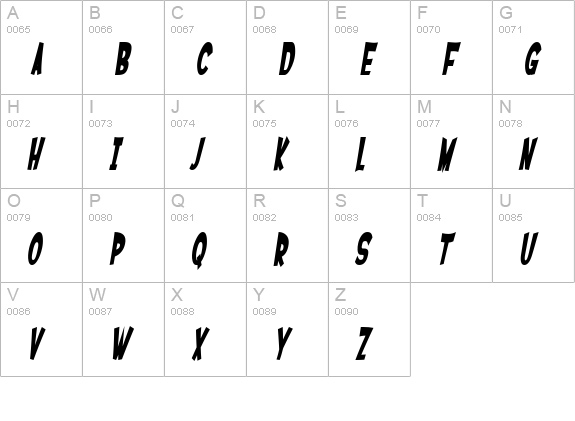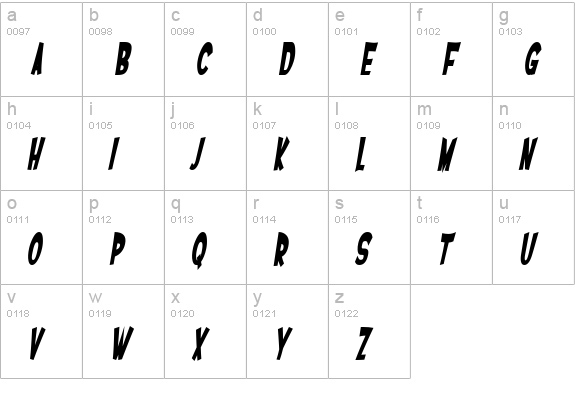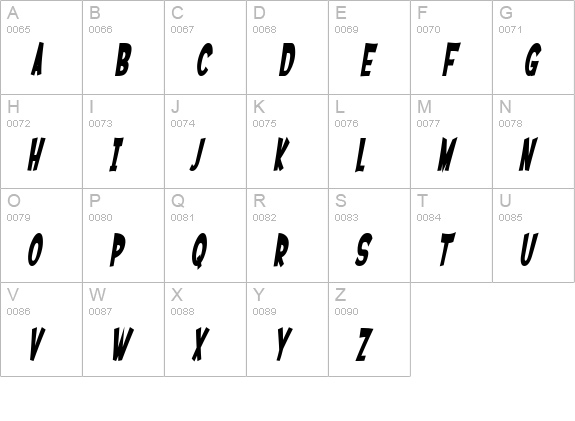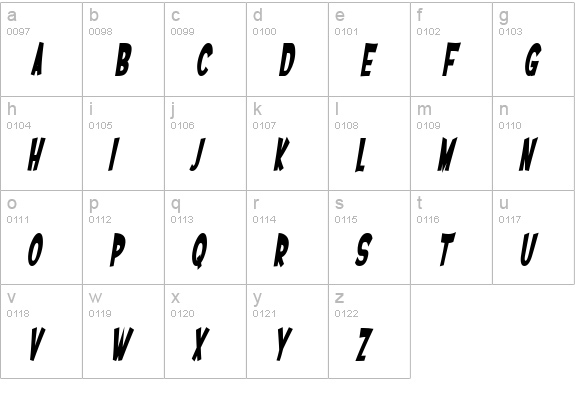
SF Ferretopia Bold Oblique Font Details
SF Ferretopia Bold Oblique is a strong, high-contrast, italic variant in the SF typeface family \xE2\x80\x94 well suited to headlines, attention-grabbing titles, and strong calls-to-action.
Introducing SF Ferretopia Bold Oblique, a remarkable font that exudes a perfect balance between strength and elegance. This font is the epitome of sophistication, with its bold strokes and captivating slant, making it ideal for designs that demand attention and make a lasting impression. SF Ferretopia Bold Oblique showcases a unique fusion of modernity and classic design, making it versatile for a wide range of creative projects. Whether you're designing a striking logo, crafting eye-catching headlines, or creating stunning posters, this font will effortlessly elevate your work to new heights. But what truly sets SF Ferretopia Bold Oblique apart is its accessibility. We believe in the power of creativity and the importance of providing tools that empower designers of all levels. That's why SF Ferretopia Bold Oblique is freely available to download at FontsMarket.com. By offering this font for free, we aim to encourage and inspire designers to unleash their creativity without any limitations. We believe that every designer should have access to high-quality resources, and SF Ferretopia Bold Oblique is our way of contributing to the design community. So, whether you're a professional designer looking for the perfect font to bring your vision to life, or a passionate beginner eager to explore the world of typography, SF Ferretopia Bold Oblique is here to enhance your creative journey. Download this font from FontsMarket.com today and experience the freedom to create without boundaries.